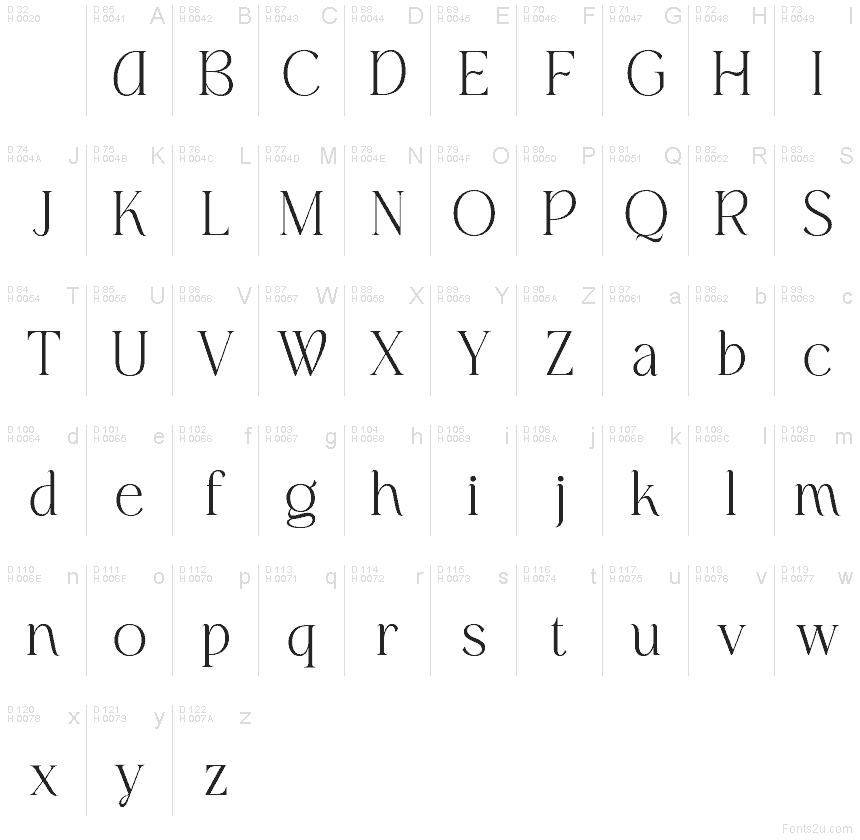
CS Beauty Regular Demo
CS Beauty font by Craft Supply Co. is a free regular high-contrast serif display font. It stands out with razor-thin hairlines, glossy ink-like strokes, and crisp, needlepoint serifs that taper into elegant curves. The rhythm feels airy and upscale—wide counters, tight joins, and just enough bite in the terminals to keep headlines looking sharp without shouting.
Using CS Beauty, headlines for fashion lookbooks, beauty packaging, luxury branding, wedding stationery, magazine covers, and perfume ads all gain that cool, editorial polish. This free font shines at large sizes where its delicate contrast can breathe; add a touch of tracking for extra poise. Pair with a clean, unobtrusive sans for body copy to let the serif’s drama take center stage.